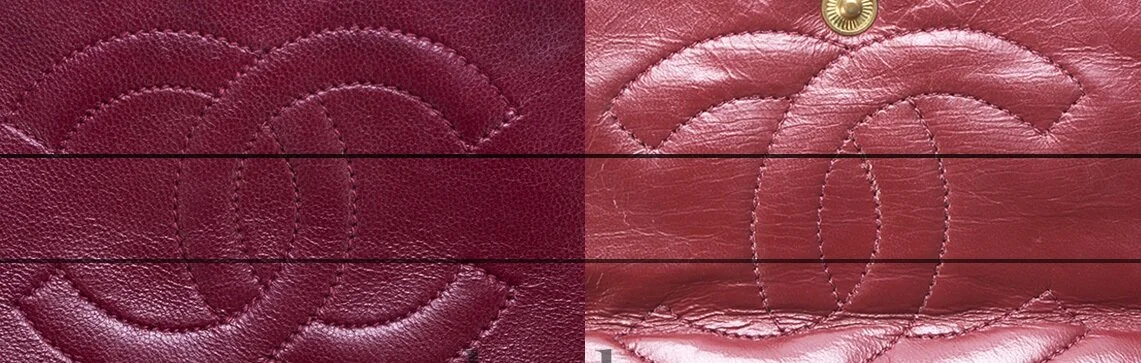
Chanel Font Type
Chanel used her own handwriting, and based on it a unique type was created Later on, the type was named “Chanel”, and it is copyrighted A few similar types, like “Couture Collection”, were derived from it, which are now used in fashion industry.
The closest font we can find for Chanel logo is Camphor Bold, which is a geometric sans serif font designed by Nick Job and published by Monotype. The closest font we can find for Chanel logo is Camphor Bold, which is a geometric sans serif font designed by Nick Job and published by Monotype Sources & Links Camphor Bold Font on myfontscom. We have 1 free coco chanel fonts to offer for direct downloading · 1001 Fonts is your favorite site for free fonts since 01.
Chanel The strong, bold geometric sans set in all caps in the logo embodies elegance and class – synonymous with the Chanel brand Using a renamed version of Gotham the brand typography doesn’t waver, everything is set in a bold weight with all caps, apart from the small body copy which is in Helvetica. ABC font here refers to the font used in the logo of ABC, namely, the American Broadcasting Company, which is an American commercial broadcasting television network founded by Edward Noble in 1943 Several logos have been used for its identity since its foundation But since 1962, the ABC Circle logo has been used though there are numerous. “Couture” is the font used in the Chanel logo This font is designed by Chase Babb You can use the font in your personal projects Simply download it from the link below.
Channel is a old school script font that was designed by Mans Greback a Swedish famous type designer This font was downloaded over 36 Million time on Dafontcom and one of the top popular fonts of the designer It is a flowing script font. So, what lettering was used when making the logo?. Disclaimer of Warranty THERE IS NO WARRANTY FOR THE PROGRAM, TO THE EXTENT PERMITTED BY APPLICABLE LAW.
This page allows you to generate Discord fonts that you can use in your chats Discord doesn't allow you to change the font by default, but using this generator you can get around that so that you can post more than just bold and underlined text in your chat messages Using the above forms you can convert text into all sorts of different fonts including Old English / medieval / gothic style text, cursive text, doublestruck, and many more. Download the Channel font by Måns Grebäck The Channel font has been downloaded 239,429 times. The CSS fontfamily Property In CSS, we use the fontfamily property to specify the font of a text The fontfamily property should hold several font names as a "fallback" system, to ensure maximum compatibility between browsers/operating systems Start with the font you want, and end with a generic family (to let the browser pick a similar font in the generic family, if no other fonts are.